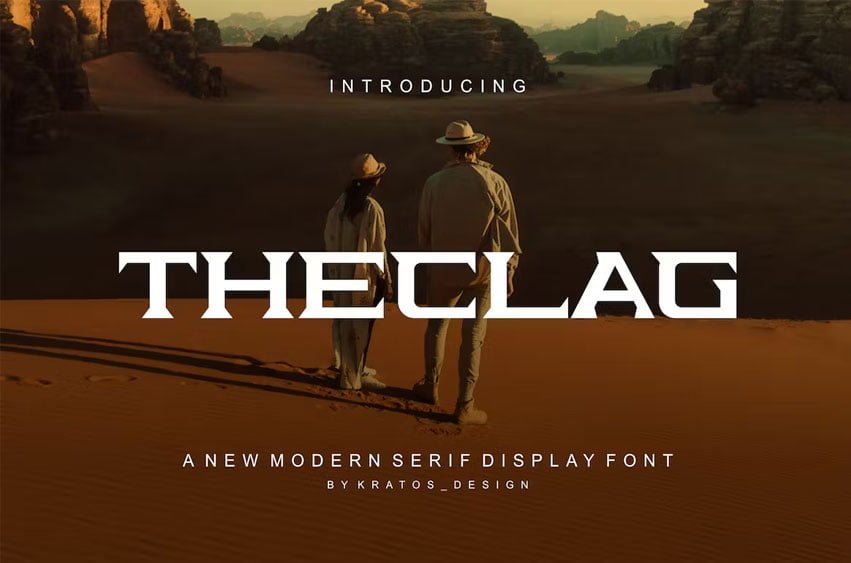
Theclag Font Modern Font is a bold and authentic display font. The font is suitable for any branding project like logo, Template Design, Product and many more. outstanding in a wide range of contexts.